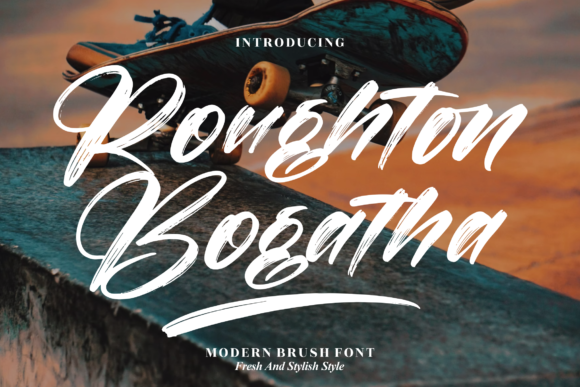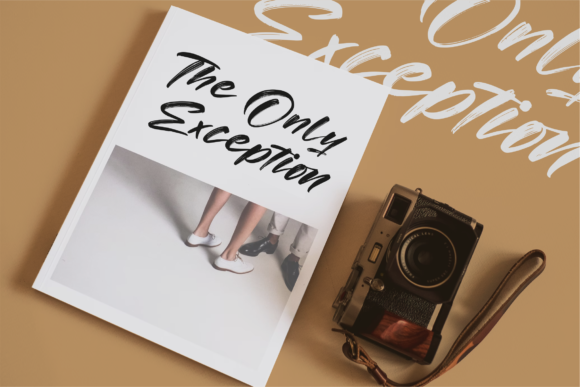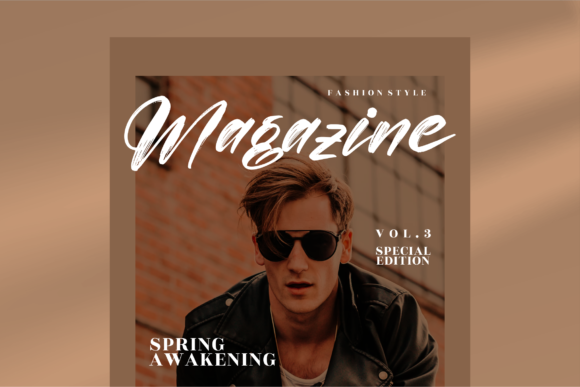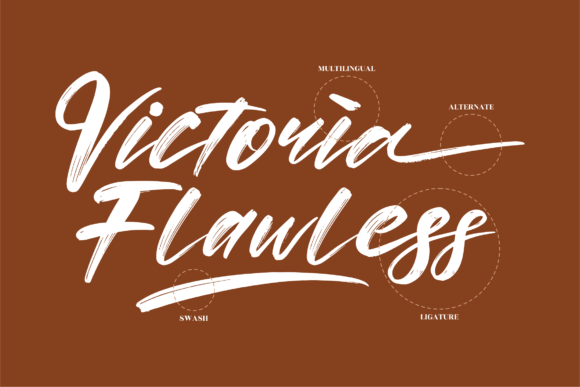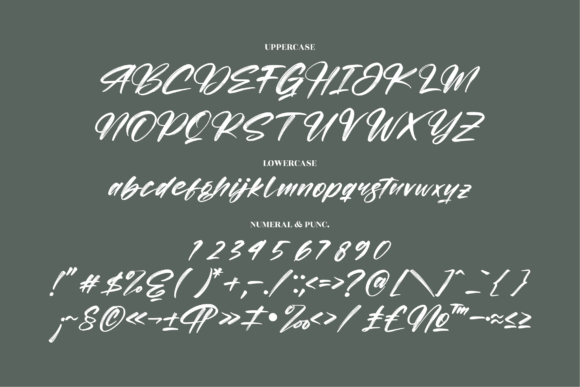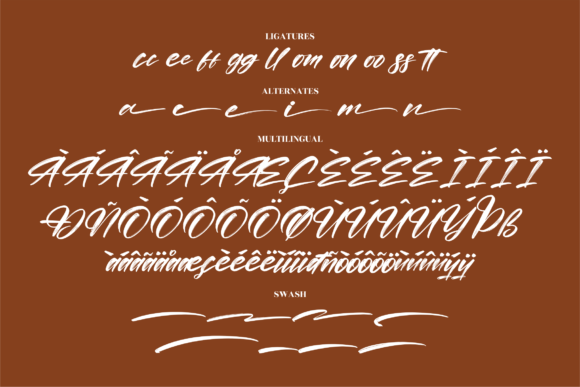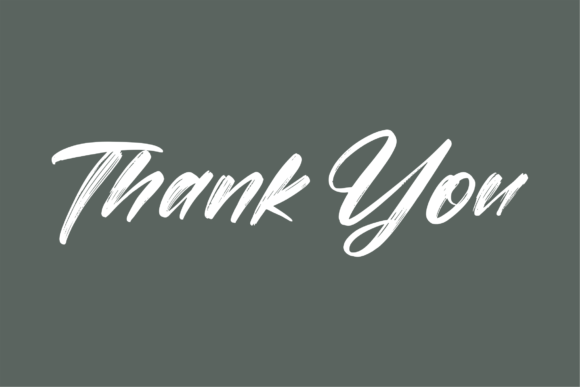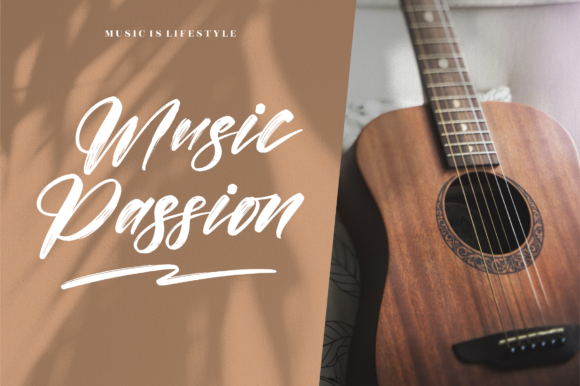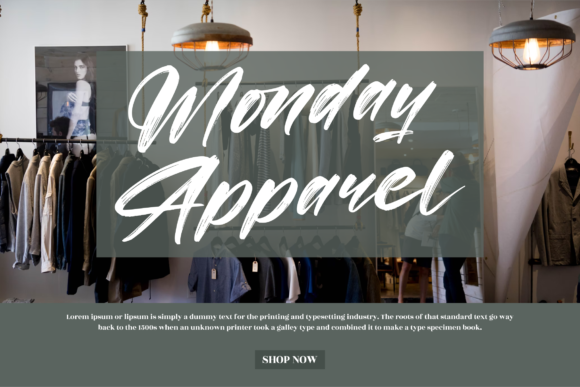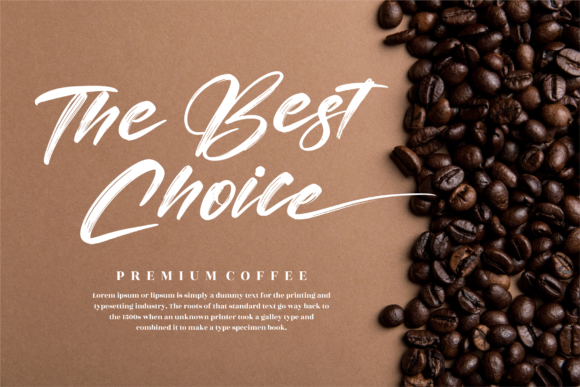
Roughton Bogatha Font
About Roughton Bogatha Font
Roughton Bogatha is a delicate, elegant and flowing handwritten font. It has beautiful and well balanced characters and as a result, it matches a wide pool of designs. It is PUA encoded which means you can access all of the glyphs and swashes with ease!